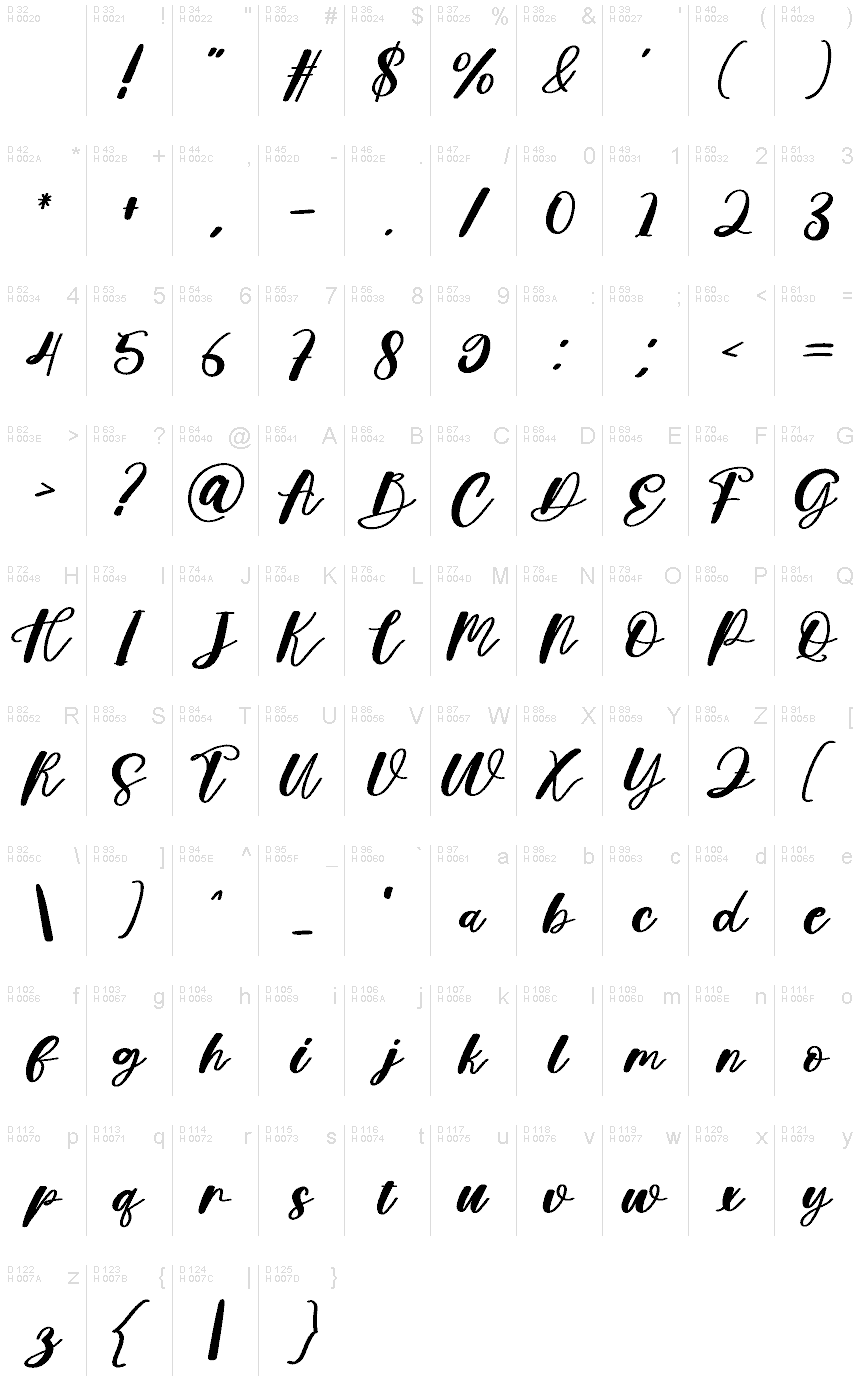
Calligrapher
Calligrapher font designed by Scratchones is a free handwritten font with a fine and elegant pen-like aesthetics. Its overall appearance is flowing, artistic, expressive, contemporary, and highly unique in its own way. It’s an exceptional visual communication tool thanks to its readability and friendly letter style.
Use this professional-quality typeface for advertisement posters, logos, branding designs, invitation cards or business cards. It works beautifully on labels and various print elements of restaurants, shops or boutiques. Use it also for packaging design of cosmetics products for example; especially since beauty design concepts are one of the popular use areas this font would look wonderful in.